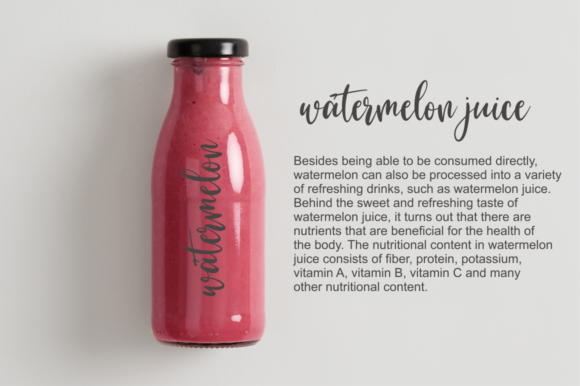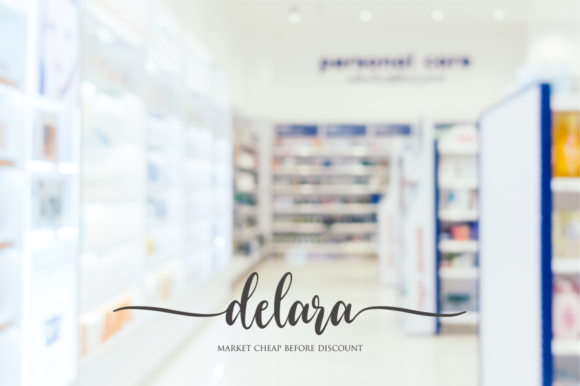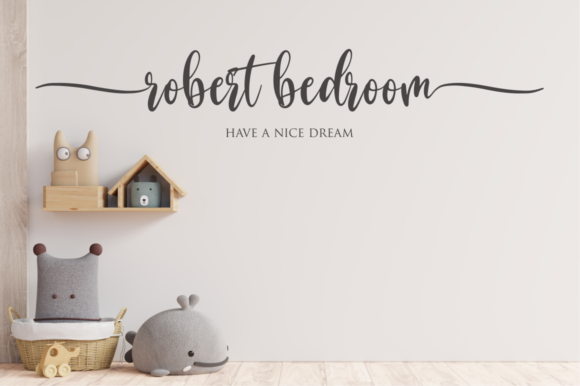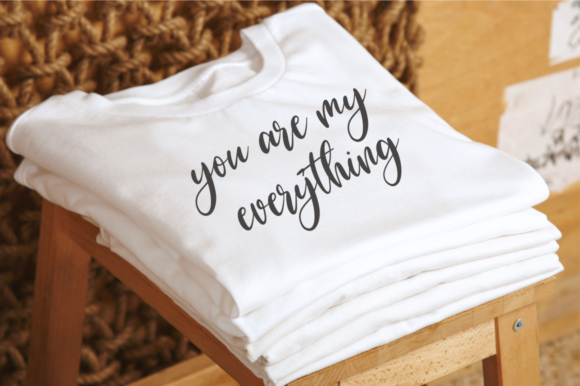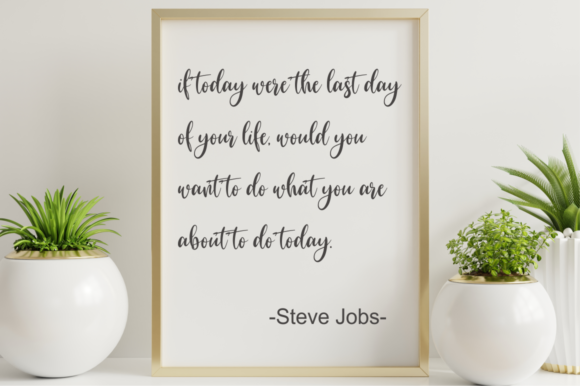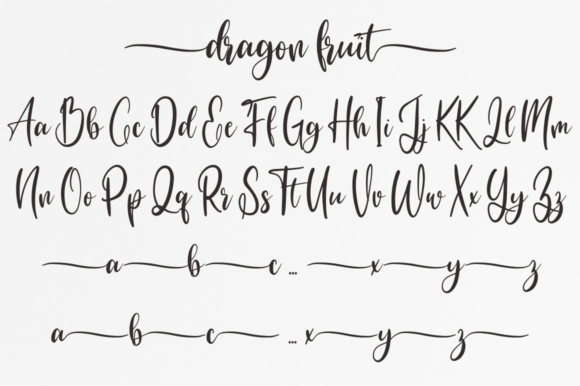
Dragon Fruit Font: Add a Touch of Whimsy to Your Designs
Are you looking for a font that can add a dash of whimsy and beauty to your designs? Look no further than the Dragon Fruit Font! This stunning font is perfect for designers and crafters who want to create unique and eye-catching designs that stand out from the crowd. In this article, we’ll take a closer look at the Dragon Fruit Font, its features, and how you can use it to elevate your designs.
What is Dragon Fruit Font?
Dragon Fruit Font is a beautiful and whimsical font that is perfect for a variety of design projects. It has a unique and elegant feel that makes it ideal for use on wedding invitations, thank you cards, quotes, greeting cards, logos, business cards, and more. The font is designed to add a touch of sophistication and elegance to your designs, while also being playful and fun.
Key Features of Dragon Fruit Font
So, what makes Dragon Fruit Font so special? Here are some of its key features:
- Whimsical and Beautiful: Dragon Fruit Font has a unique and whimsical feel that makes it perfect for designers who want to add a touch of personality to their designs.
- Versatile: Dragon Fruit Font is perfect for a variety of design projects, including wedding invitations, thank you cards, quotes, greeting cards, logos, business cards, and more.
How to Use Dragon Fruit Font in Your Designs
So, how can you use Dragon Fruit Font in your designs? Here are a few ideas to get you started:
- Wedding Invitations: Dragon Fruit Font is perfect for wedding invitations, as it adds a touch of elegance and sophistication to your designs.
- Thank You Cards: Use Dragon Fruit Font to create beautiful and personalized thank you cards for special occasions.
- Quotes and Posters: The font is great for creating inspirational quotes and posters, as it adds a touch of whimsy and personality to your designs.
- Greeting Cards: Dragon Fruit Font is perfect for creating greeting cards for special occasions, such as birthdays, holidays, and more.
- Logos and Business Cards: Use the font to create unique and eye-catching logos and business cards that stand out from the crowd.
Tips for Getting the Most Out of Dragon Fruit Font
Here are a few tips for getting the most out of Dragon Fruit Font:
- Use the Font with Other Design Elements: Dragon Fruit Font pairs well with other design elements, such as illustrations, graphics, and more.
In conclusion, Dragon Fruit Font is a beautiful and whimsical font that is perfect for designers and crafters who want to add a touch of personality to their designs. With its unique and elegant feel, PUA encoding, and versatility, it’s the perfect font for a variety of design projects. Whether you’re creating wedding invitations, thank you cards, quotes, greeting cards, logos, business cards, or more, Dragon Fruit Font is sure to make your designs stand out from the crowd.